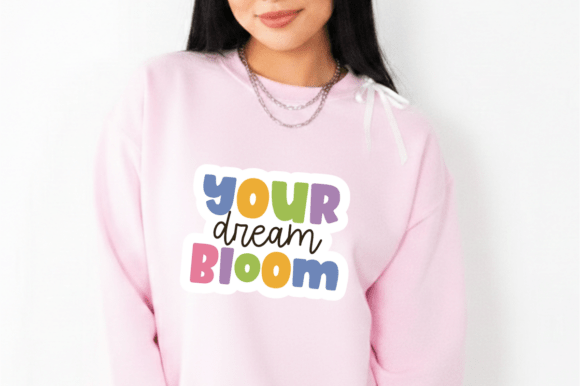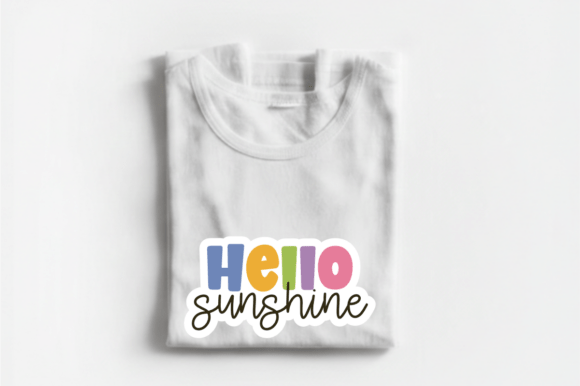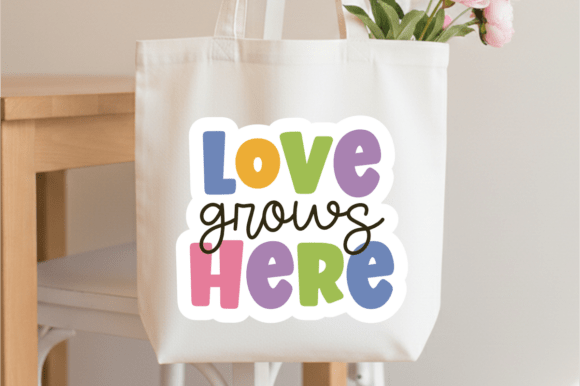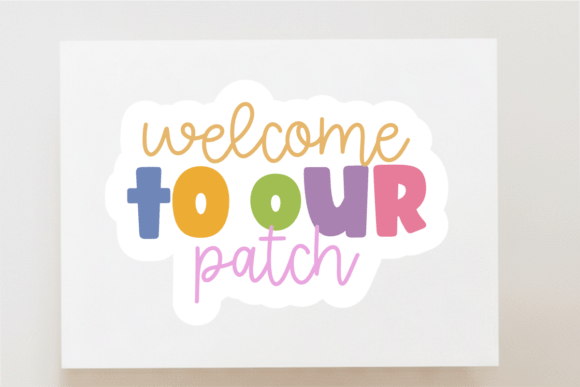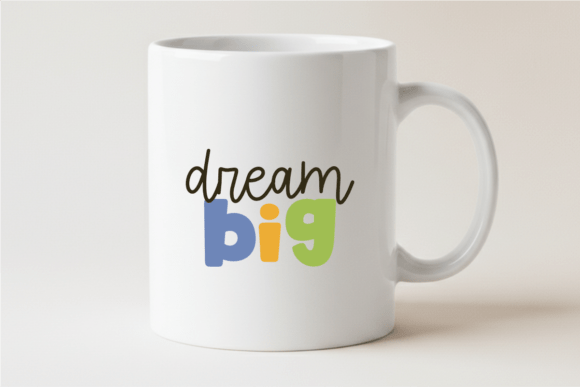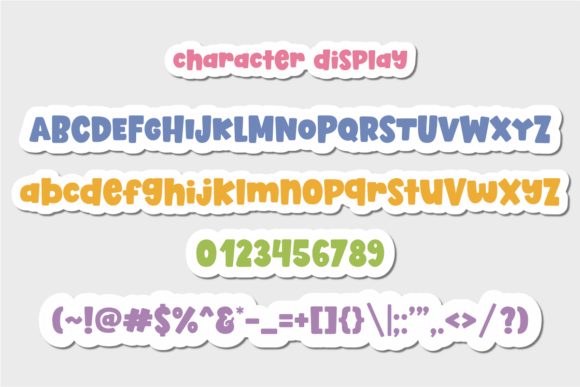
Introducing the Chick Garden Font Duo: A Playful Pairing for Vibrant Designs
Are you looking for a font duo that can inject a burst of playful energy into your next project? Look no further than the Chick Garden font duo, a delightful pairing of thick, bubbly display letters and a charming handwritten script. This expertly crafted font duo is designed to evoke warmth, friendliness, and energy, making it the perfect choice for designers and crafters who want to create vibrant and youthful designs.
A Versatile Font Duo for a Wide Range of Projects
The Chick Garden font duo is incredibly versatile, effortlessly bridging the gap between youthful appeal and vibrant design demands. Whether you’re working on a personal brand, logo design, children’s toy store, infant product, snack brand, or any other project that requires a playful and energetic vibe, this font duo is the perfect choice. The gentle curves and inherently organic feel of the Chick Garden font duo add a genuine, handcrafted touch to your creations, breathing life and character into them at first glance.
The possibilities are endless with the Chick Garden font duo. Here are just a few ideas to get you started:
- Personal brands: Add a touch of personality to your brand with custom lettering and logos.
- Logo designs: Create eye-catching logos that stand out from the crowd.
- Children’s toy stores: Create fun and playful signage and packaging for kids’ toys.
- Infant products: Add a sweet and charming touch to baby-related products.
- Snack brands: Create colorful and playful packaging for snack foods.
- Inscribed stickers: Add a personal touch to stickers and labels.
- Attention-grabbing posters: Create bold and eye-catching posters that grab attention.
- Invites: Design custom invitations for parties and special events.
- Celebratory cards: Create heartfelt and personalized greeting cards.
- Personalized mugs: Add a touch of personality to coffee mugs and other ceramics.
- Trendy t-shirts: Design custom apparel with bold and playful graphics.
- Charming keychains: Create cute and functional keychains with custom lettering.
- Love-filled wedding and invitations cards: Add a romantic touch to wedding invitations and cards.
- Captivating book covers: Design eye-catching book covers that stand out on bookshelves.
- Sleek packaging: Create modern and stylish packaging for products.
- Professional business cards: Add a touch of personality to business cards and professional documents.
Why Choose the Chick Garden Font Duo?
So why choose the Chick Garden font duo for your next project? Here are just a few reasons:
- Playful energy: The Chick Garden font duo is designed to inject a burst of playful energy into your designs.
- Versatility: This font duo is incredibly versatile and can be used for a wide range of projects.
- Handcrafted feel: The gentle curves and organic feel of the Chick Garden font duo add a genuine, handcrafted touch to your creations.
The Chick Garden font duo is a powerful tool for designers and crafters who want to create vibrant and playful designs. With its thick, bubbly display letters and charming handwritten script, this font duo is perfect for a wide range of projects. Whether you’re working on a personal brand, logo design, or any other project that requires a playful and energetic vibe, the Chick Garden font duo is the perfect choice. So why wait? Download the Chick Garden font duo today and start creating your own unique and captivating designs!
In short, the Chick Garden font duo is your passport to a world of design achievement. With its versatility, playfulness, and handcrafted feel, this font duo has the power to transform your designs and take them to the next level. So don’t miss out on this opportunity to elevate your designs and make a lasting impression on your audience.